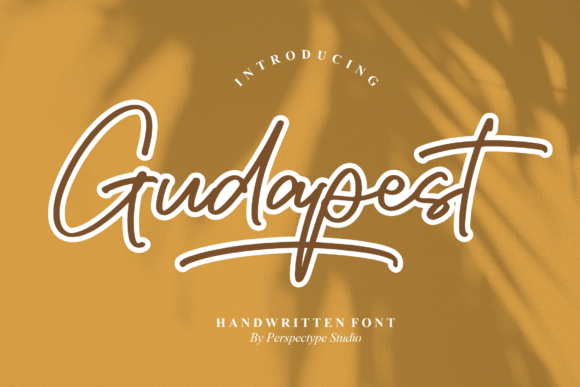
Embark on a typographic odyssey with Gudapest, a font crafted with elegance and charm. This exquisite handwritten script dances across your screen, leaving a trail of visual delight. Gudapest is not just a font; it's an expression of artistry, a canvas for your creativity to flourish.
Unleash the enchanting allure of Gudapest, a font that captures the essence of romance and joy. Allow your designs to blossom with graceful curves and delicate strokes that evoke a sense of playful elegance. From branding to wedding invitations, from greeting cards to fashion lookbooks, Gudapest adds a touch of whimsy and sophistication to every project.
Dive into the world of Gudapest and discover a font that harmonizes with your creative vision. Whether you're designing a captivating logo, creating a heartfelt greeting card, or crafting a chic marketing campaign, Gudapest elevates your message with effortless style and charm.
Envision your designs adorned with Gudapest's enchanting script, captivating your audience with its timeless beauty. This font is a storyteller, weaving tales of love, laughter, and elegance through its intricate lines. Let Gudapest be your creative muse, inspiring you to create designs that resonate with your audience on an emotional level.
Immerse yourself in the boundless possibilities of Gudapest, a font that dances gracefully across the digital realm, leaving a trail of typographic magic. Embrace the joy of creation and let Gudapest guide you towards design excellence.